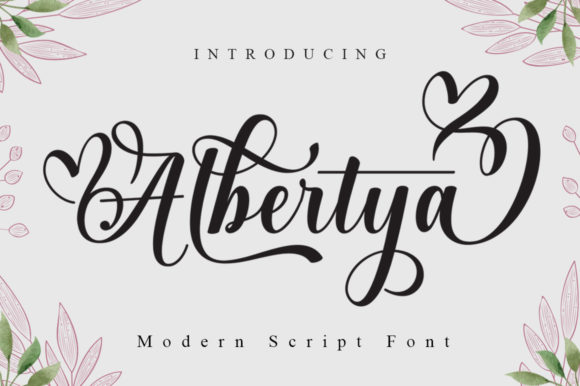
The Designer’s Delight: Unpacking the Elegance of Albertya Font
I still remember the frustration of working on a high-end branding project, only to hit a creative roadblock when searching for the perfect font. My client wanted something that exuded luxury, sophistication, and a touch of elegance. That’s when I stumbled upon Albertya Font, and it instantly became my go-to choice. In this article, I’ll share my experience with Albertya, its unique features, and how to make the most of this stunning script font.
First Impressions: What Makes Albertya Stand Out
Albertya is a distinct and flowing script font designed for projects that demand high-quality aesthetics, such as packaging products, invitation cards, flyers, mockups, event posters, and more. Its beautiful and balanced character makes it an excellent fit for a wide range of design projects.
The font’s PUA encoding is a significant advantage, allowing easy access to all glyphs and swashes. This feature is particularly useful for designers who want to experiment with different styles and variations.
What I Love About Albertya ✨
- ✅ Elegant and flowing script style, perfect for high-end designs
- ✅ Beautifully balanced character, suitable for a wide range of design projects
- ✅ High-quality aesthetics, ideal for packaging, invitations, and event posters
- ⚠️ Limited use in body text due to its script nature; best suited for headings and titles
- ⚠️ May require additional design elements to balance with other fonts in a project
The Story Behind Albertya: Designer Inspiration
While the actual story behind Albertya’s creation is unclear, it’s easy to imagine a designer inspired by the elegance of traditional calligraphy and the beauty of handwritten scripts. Perhaps the designer aimed to create a font that would bring a touch of sophistication to various design projects, from luxury branding to wedding invitations.
A: PUA (Private Use Area) encoding allows font users to access a wide range of glyphs and swashes, making it easier to create unique and customized designs.
Q: Can I use Albertya Font for body text?
A: While Albertya Font is beautiful, it’s best suited for headings and titles due to its script nature. For body text, consider a more readable font.